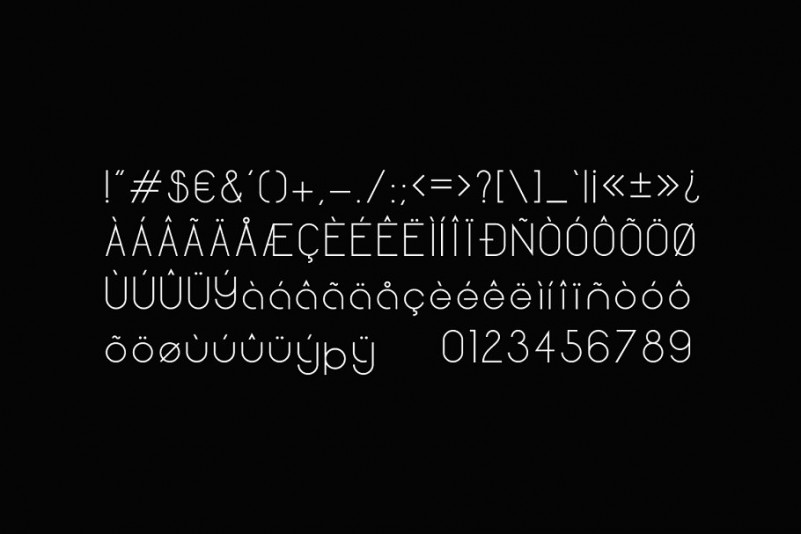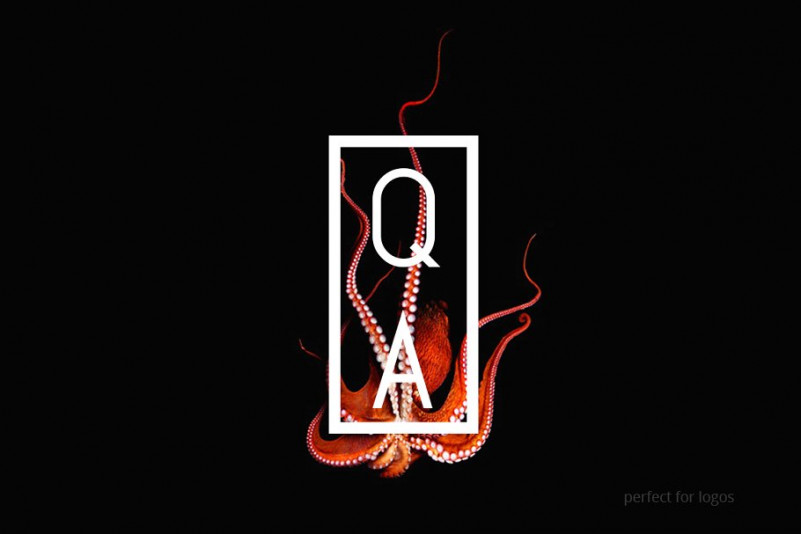
Quantum Sans Serif Font
Introducing Quantum Font. It is designed by Yana Bereziner, this is a premium font, are sold on creativemarket, but it was great, it is free today for download. Quantum Sans Serif Font is a geometric font included 3 weights. It consists of uppercase, lowercase and full glyph set. The idea was to create a modern sans serif font that will fit everyday design needs. It seems good big and small and is perfect for logos, soft supporting text, headlines, posters, monograms, titles etc.